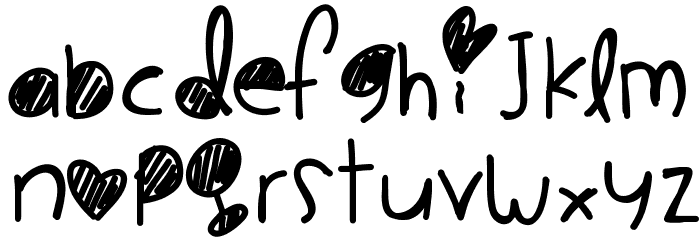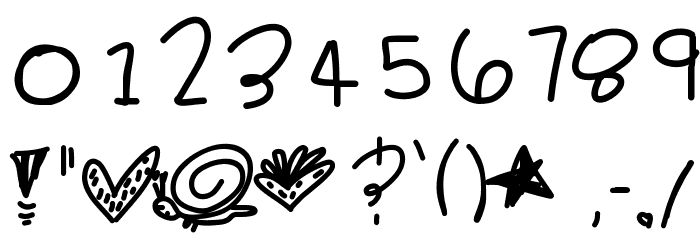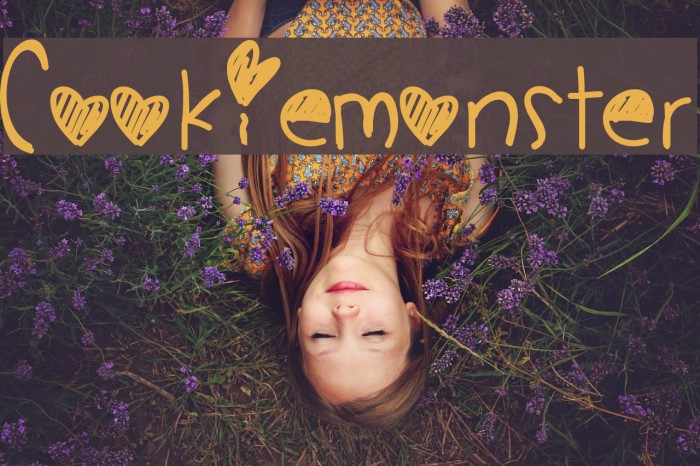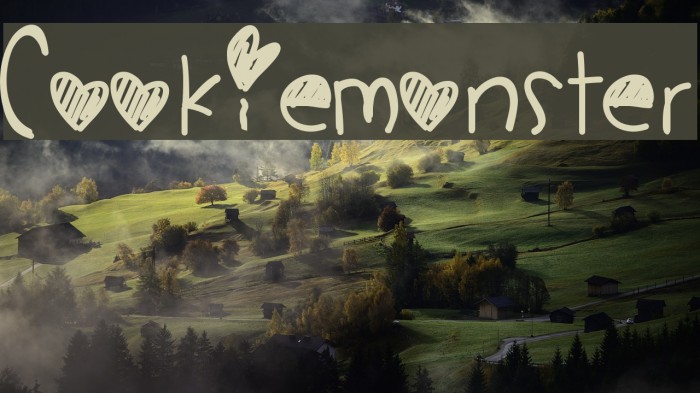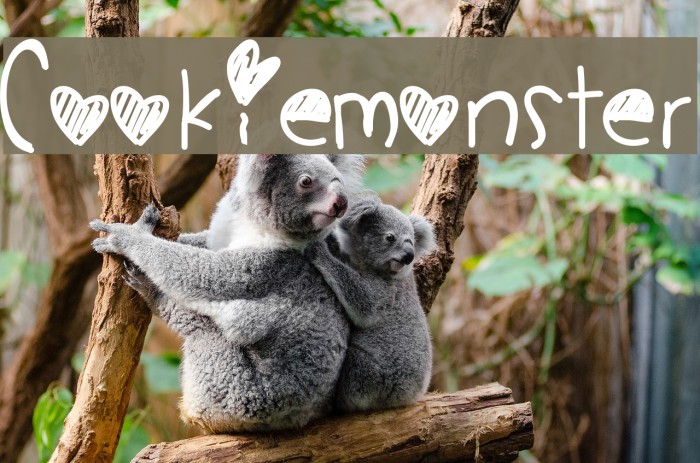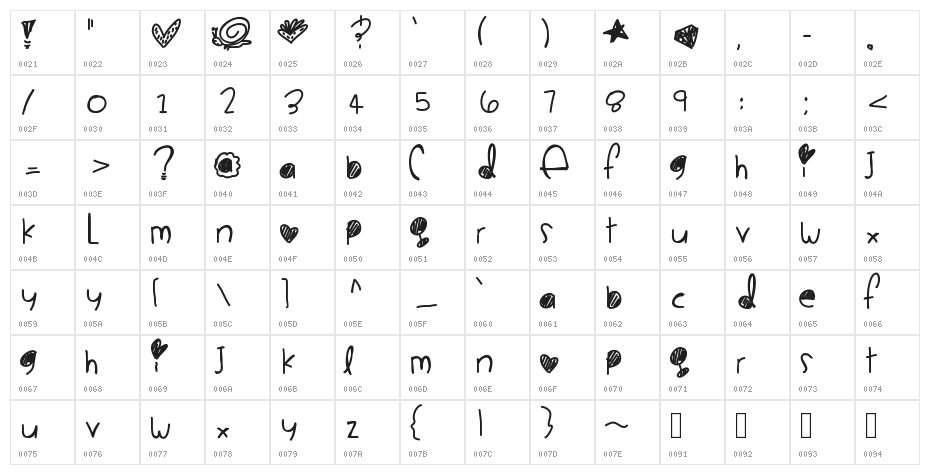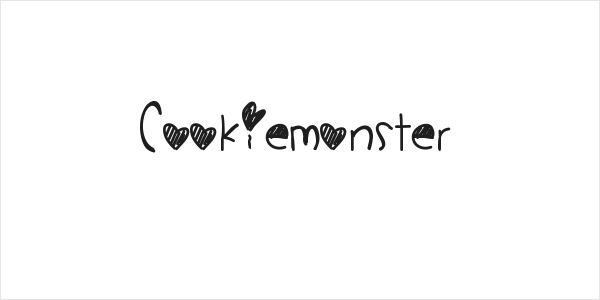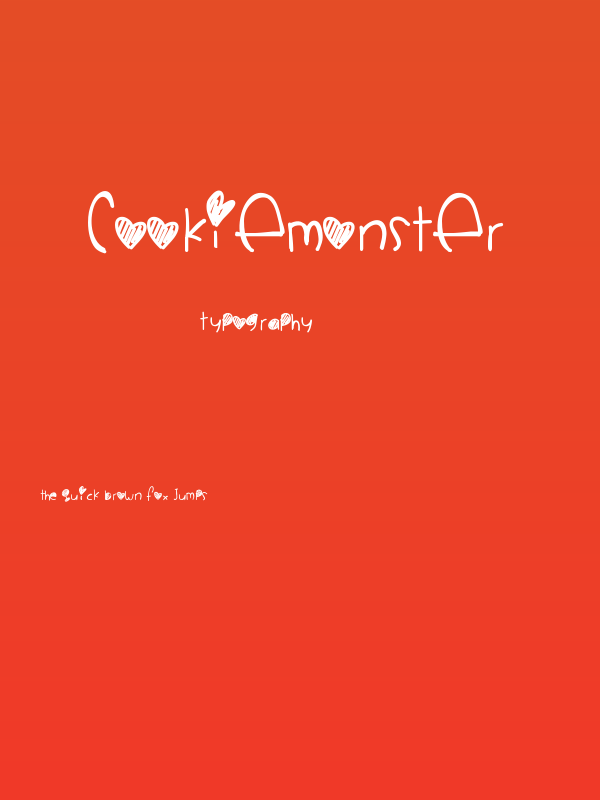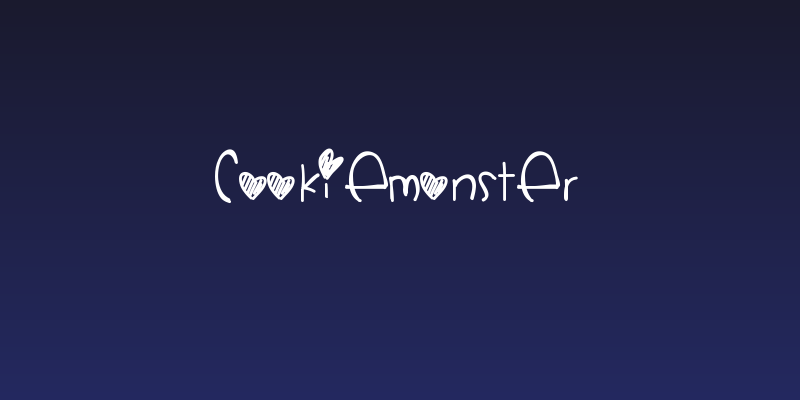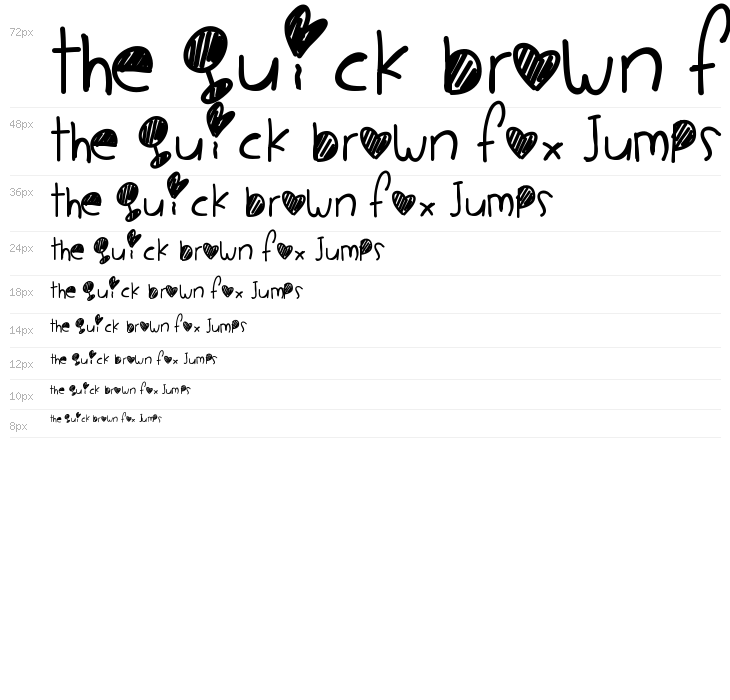
CookieMonster Font
This playful and whimsical font features a handwritten style with a unique twist. Each letter is crafted with a casual, flowing script that exudes a sense of fun and creativity. The font includes charming heart motifs integrated into some of the letters, adding a touch of romance and personality. The numbers and special characters maintain the same playful aesthetic, making it suitable for a variety of creative projects. The overall design is informal and lively, perfect for capturing attention and conveying a sense of joy and spontaneity.
A playful, handwritten font with heart motifs and a whimsical style.
- Proposed Projects: Ideal for greeting cards, children's books, playful branding, and DIY projects.
- Use Case: Logos, Headlines, Creative projects